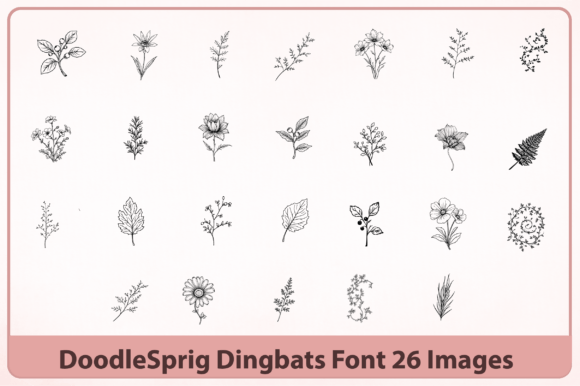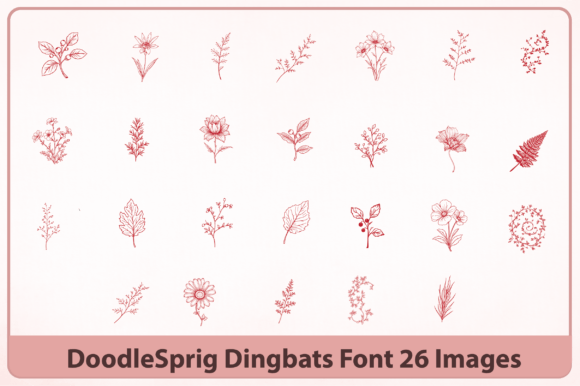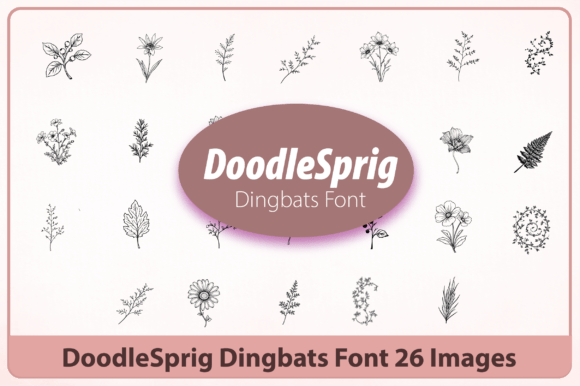
Doodlesprig Font: Elevate Your Design with Delicate Botanical Flourishes
Imagine a world where every keystroke becomes a beautiful work of art. Welcome to the enchanting realm of Doodlesprig Font, a stunning dingbat font that transforms ordinary text into elegant, botanical masterpieces. With Doodlesprig, you can add a touch of sophistication and whimsy to your designs, making it perfect for logos, branding, invitations, and even emails.
The Magic of Doodlesprig Font
Why type words when you can type leaves and flowers? Doodlesprig Font is a unique and creative way to add visual interest to your designs. This elegant font replaces traditional characters with intricate, hand-drawn botanical illustrations, turning every keystroke into a delicate flourish. From simple leaves to intricate flowers, each glyph is carefully crafted to add a touch of elegance and refinement to your work.
Doodlesprig Font is incredibly versatile, making it suitable for a wide range of design applications. Here are just a few ideas to get you started:
• Logos and Branding: Create a memorable and distinctive brand identity with Doodlesprig Font. Perfect for businesses and individuals in the creative, wellness, or lifestyle industries.
• Invitations and Stationery: Add a touch of elegance to your wedding invitations, party invites, or personal stationery with Doodlesprig’s beautiful botanical flourishes.
• Email and Social Media: Stand out in a crowded inbox or social media feed with Doodlesprig Font. Add a touch of sophistication to your emails, newsletters, or social media posts.
• Crafting and Scrapbooking: Take your crafting and scrapbooking to the next level with Doodlesprig Font. Create beautiful, one-of-a-kind projects that showcase your creativity.
Why Designers and Crafters Love Doodlesprig Font
Doodlesprig Font has quickly become a favorite among designers and crafters, and for good reason. Here are just a few reasons why:
• Unique and Eye-Catching: Doodlesprig Font is unlike anything you’ve ever seen before. Its unique, hand-drawn illustrations are sure to grab attention and leave a lasting impression.
• Elegant and Refined: Doodlesprig Font adds a touch of sophistication and elegance to any design. Perfect for businesses or individuals looking to convey a sense of refinement and luxury.
• Easy to Use: Doodlesprig Font is incredibly easy to use, even for those with limited design experience. Simply type away, and watch as your text transforms into beautiful botanical illustrations.
Doodlesprig Font is a game-changer for designers and crafters looking to add a touch of elegance and whimsy to their work. With its unique, hand-drawn botanical illustrations and endless design possibilities, Doodlesprig Font is the perfect tool for anyone looking to elevate their design skills. So why type words when you can type leaves and flowers? Try Doodlesprig Font today and discover a world of creative possibilities!